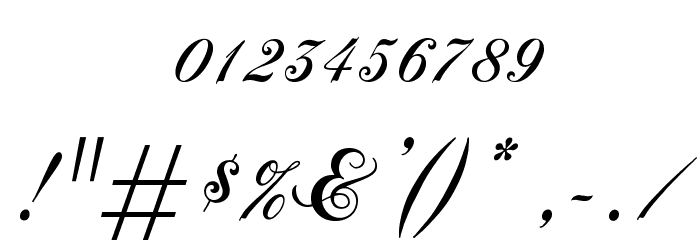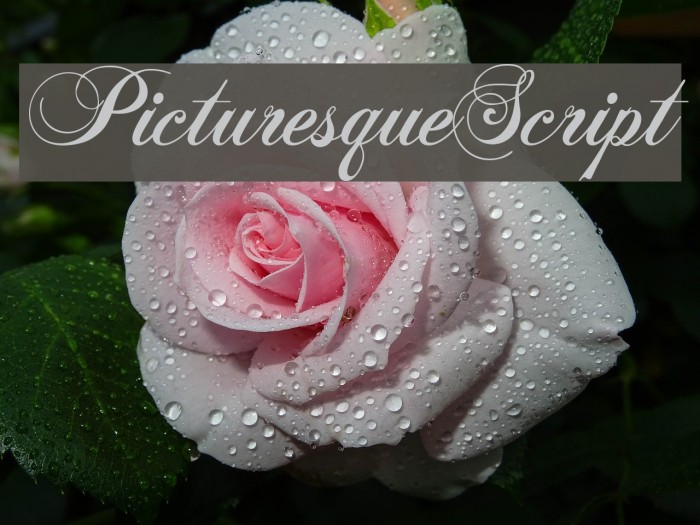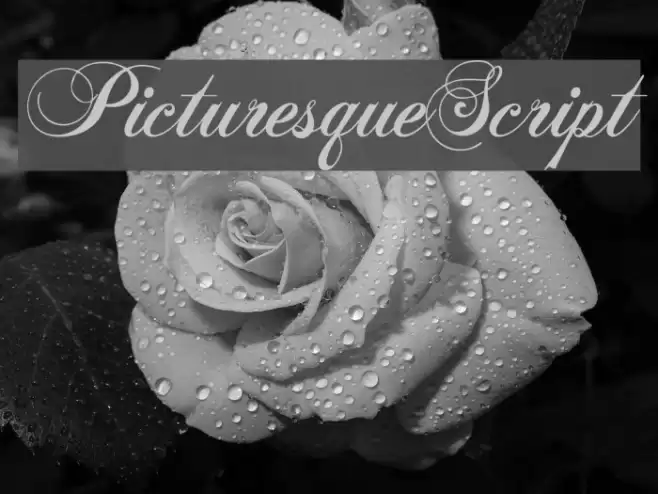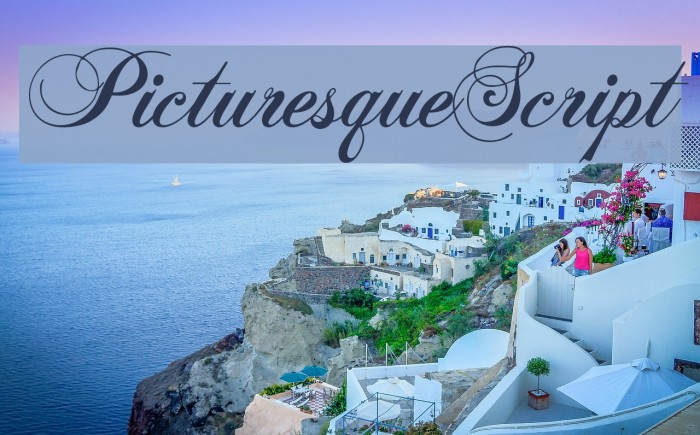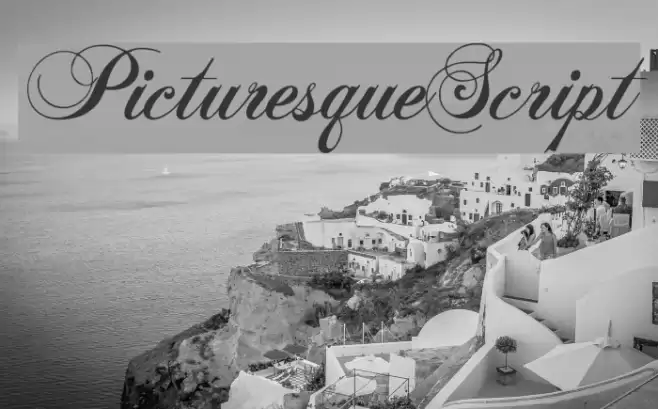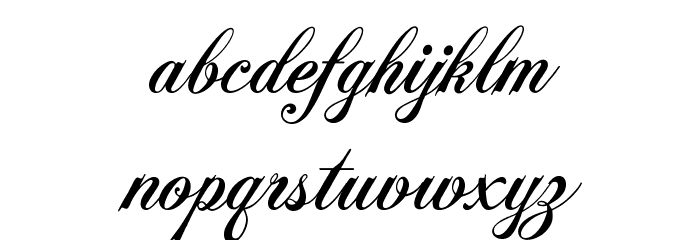
PicturesqueScript Font
PicturesqueScript Description
This elegant script font features intricate, flowing lines and elaborate swashes that give it a sophisticated and ornamental appearance. The uppercase letters are particularly decorative, with flourishes that extend beyond the baseline and cap height, creating a sense of grandeur and elegance. The lowercase letters maintain a more restrained style, yet still exhibit a graceful, cursive form that complements the uppercase characters. The numerals and special characters are designed with similar attention to detail, ensuring a cohesive look across all glyphs. This font is ideal for projects that require a touch of luxury and refinement, such as wedding invitations, high-end branding, or formal event materials. Its high contrast in stroke thickness adds to its dramatic and eye-catching appeal, making it suitable for headlines and display purposes.
| Proposed Projects | Wedding invitations, luxury branding, formal event materials, elegant packaging, decorative headlines. |